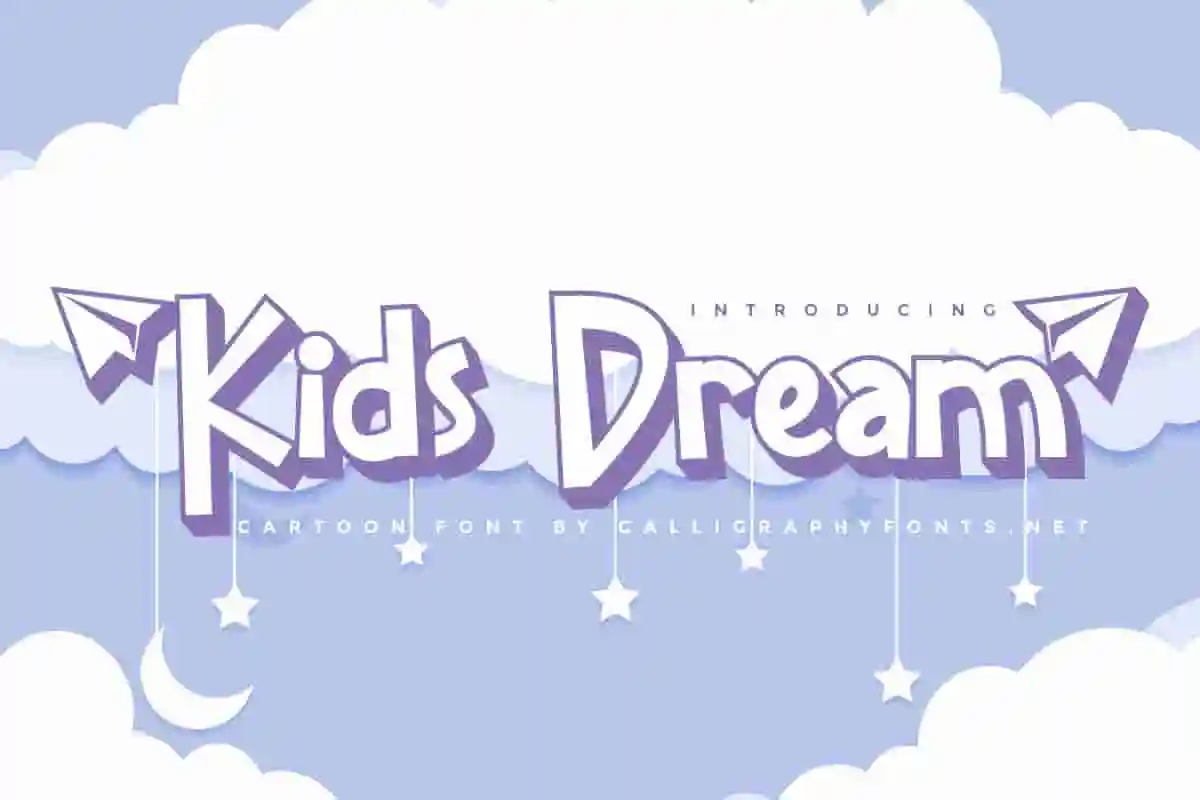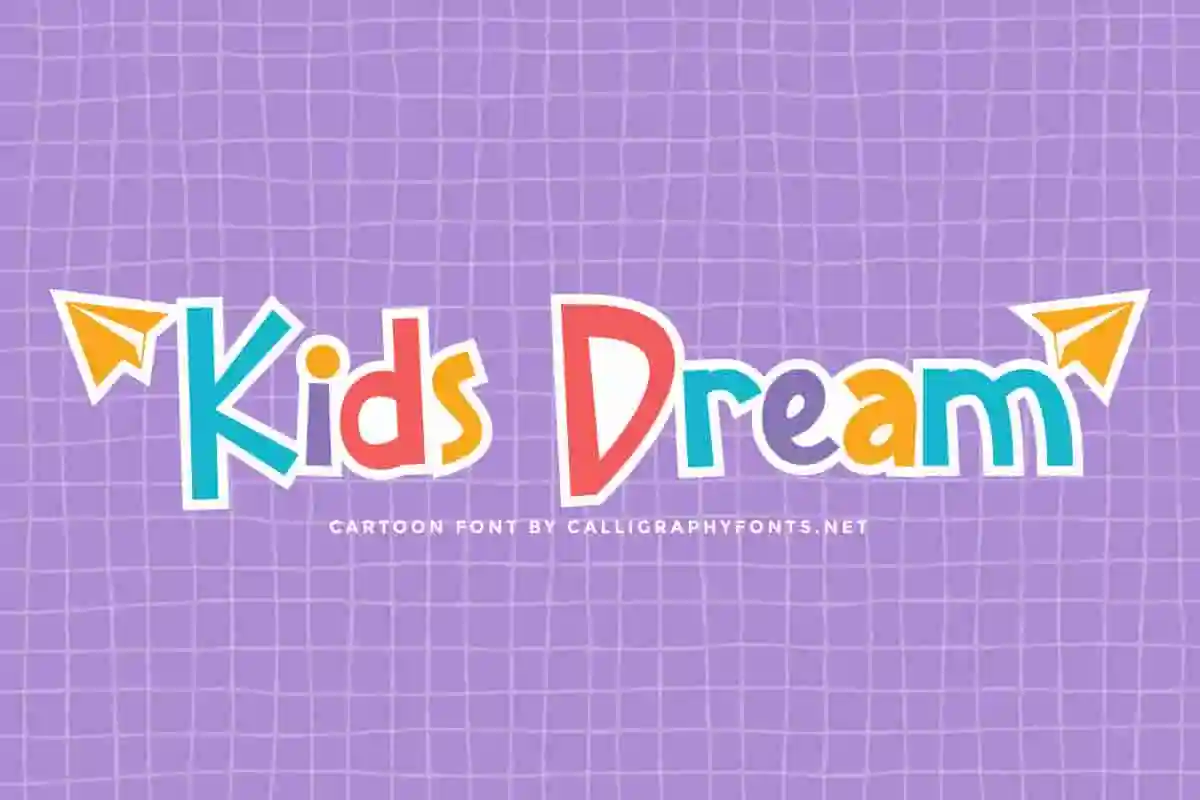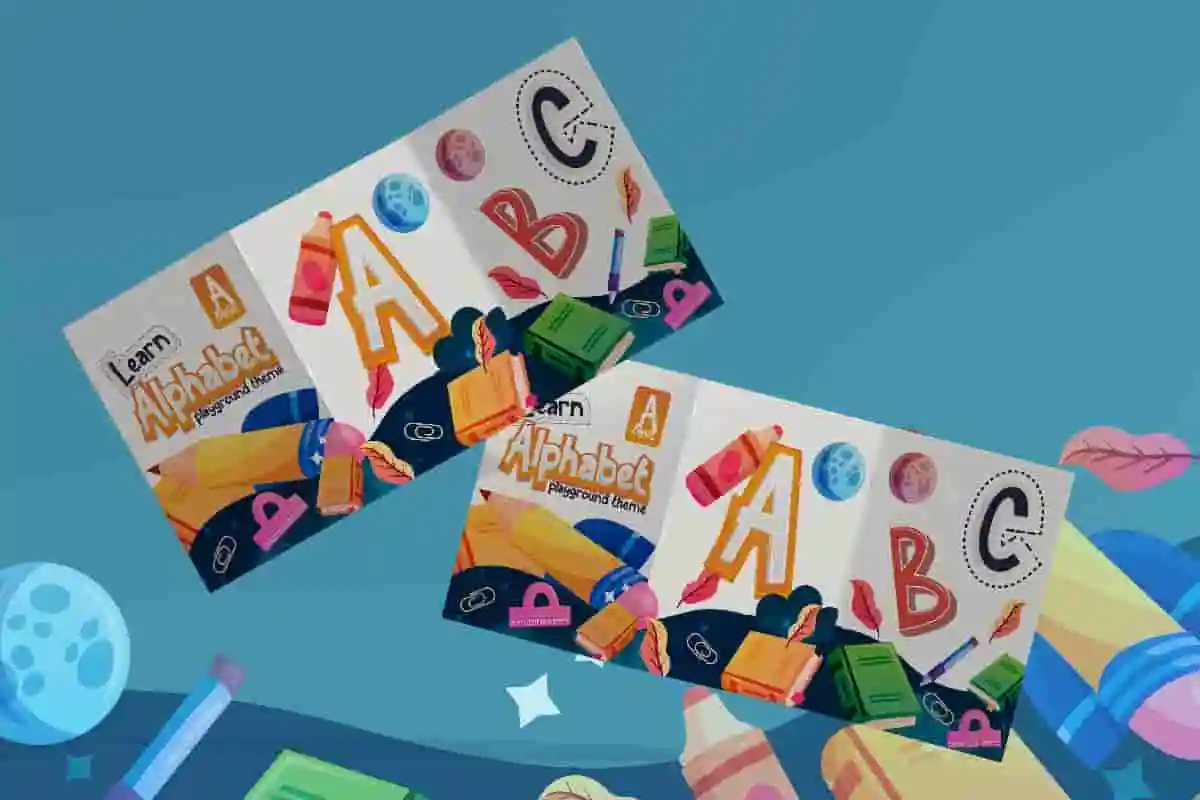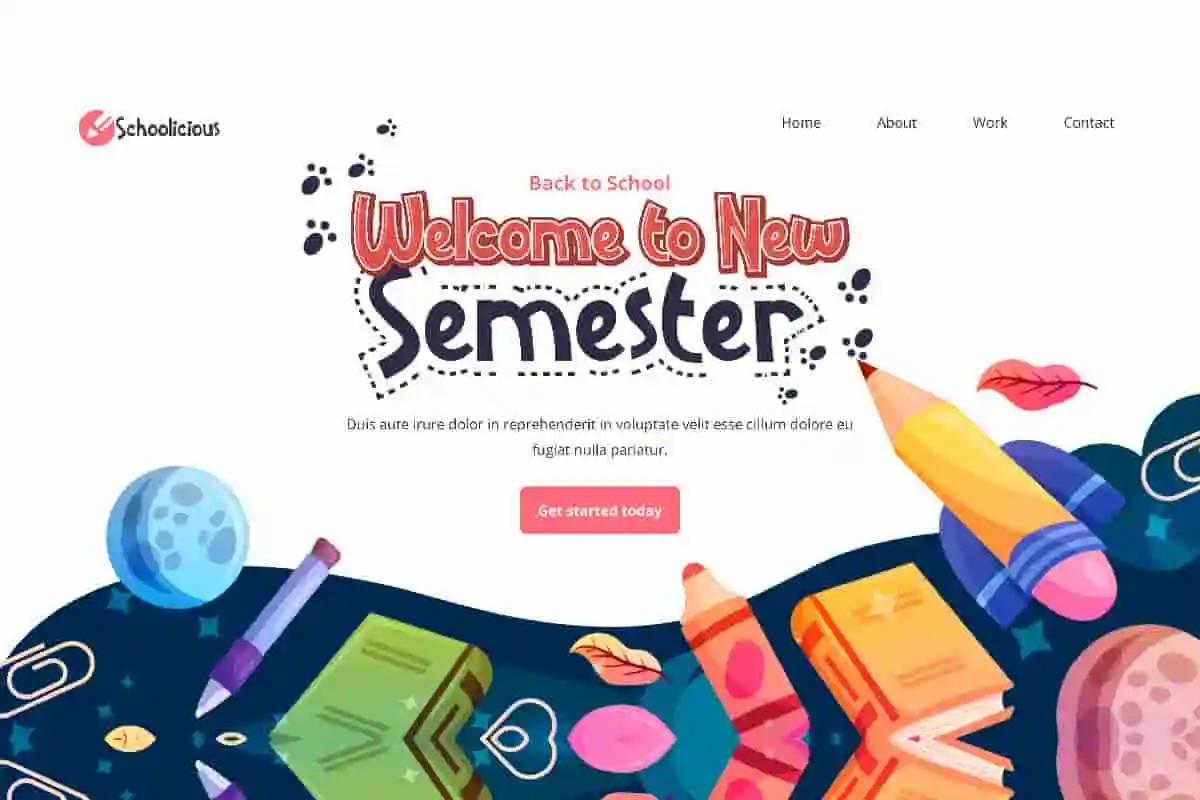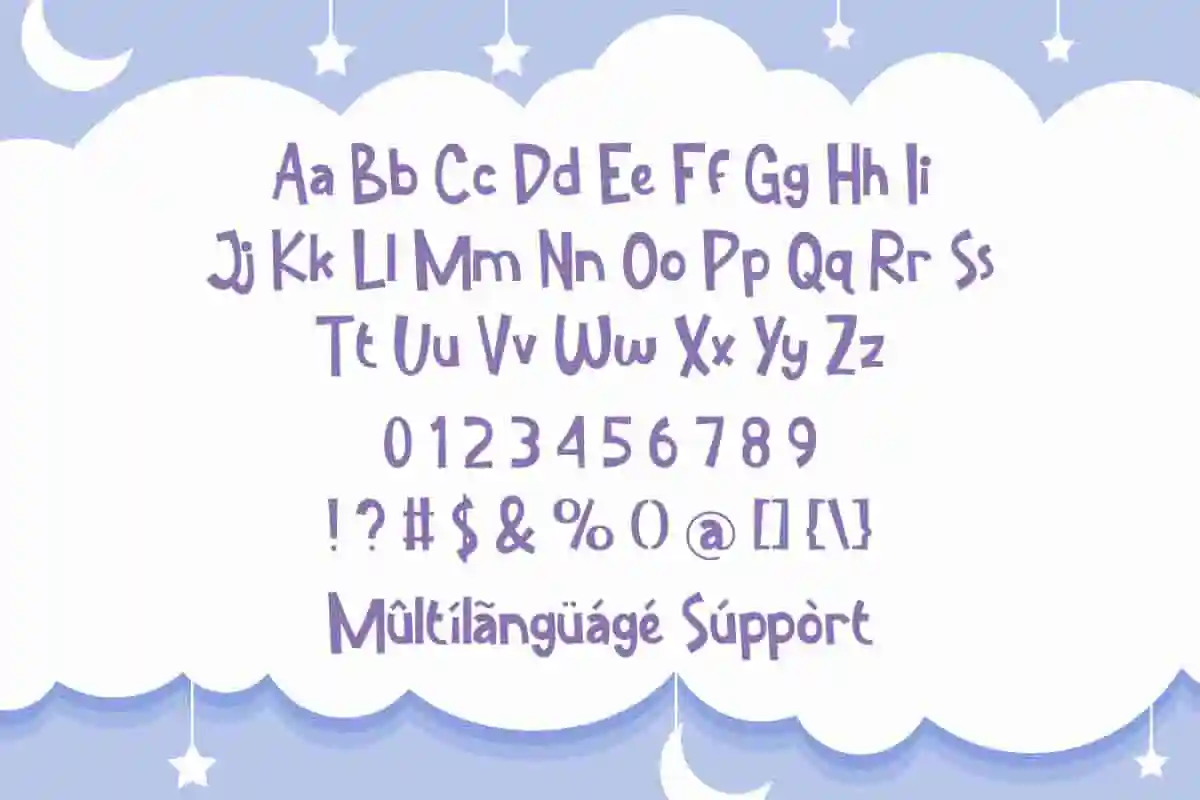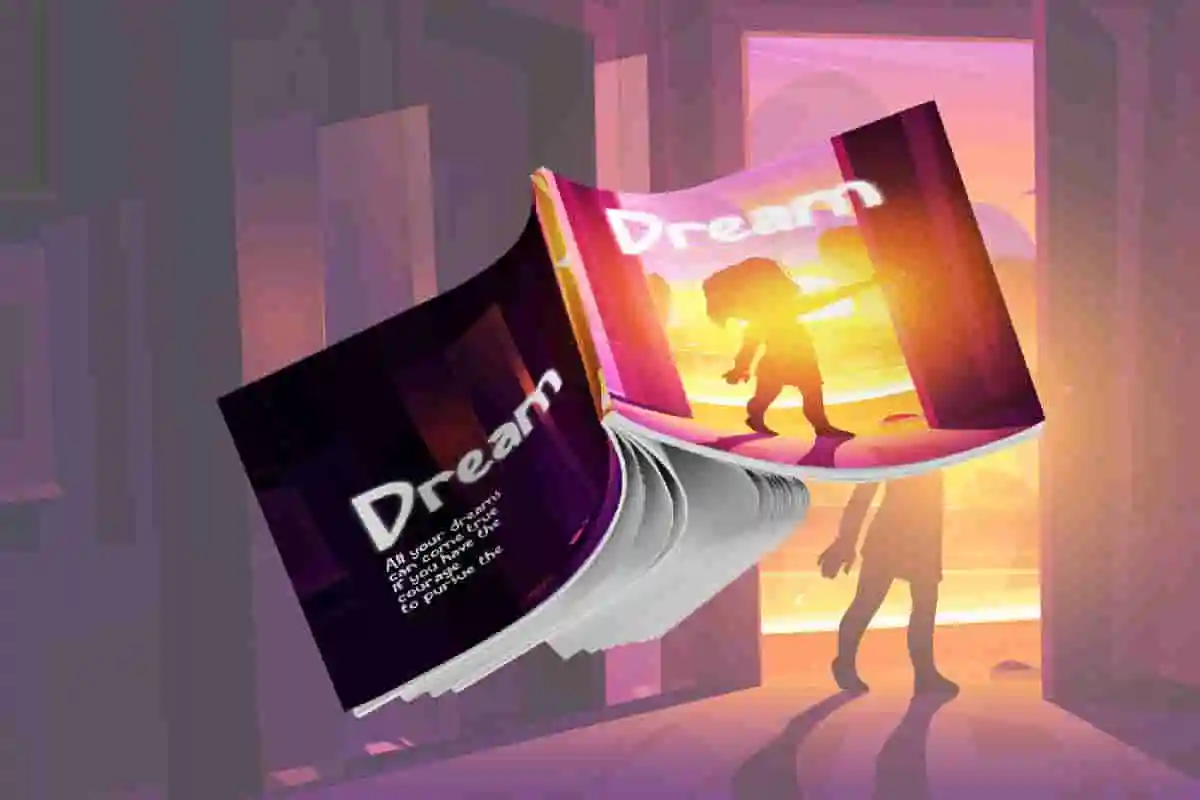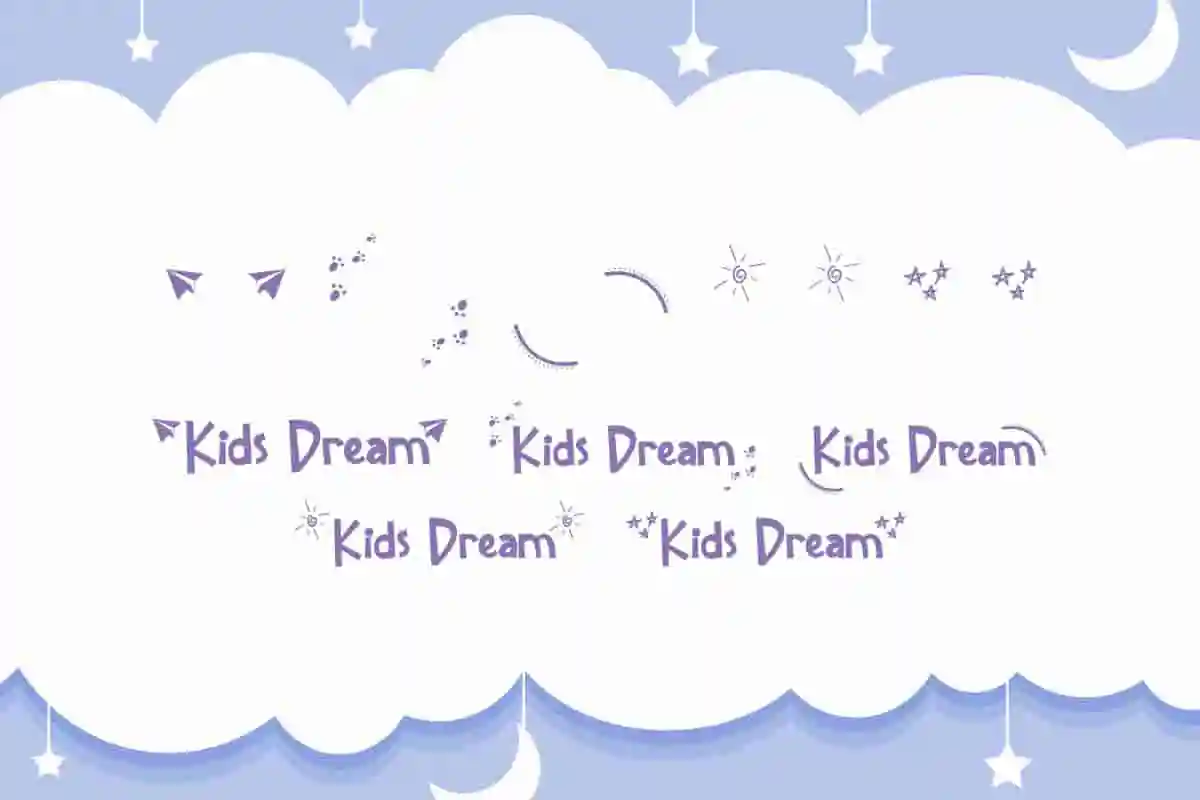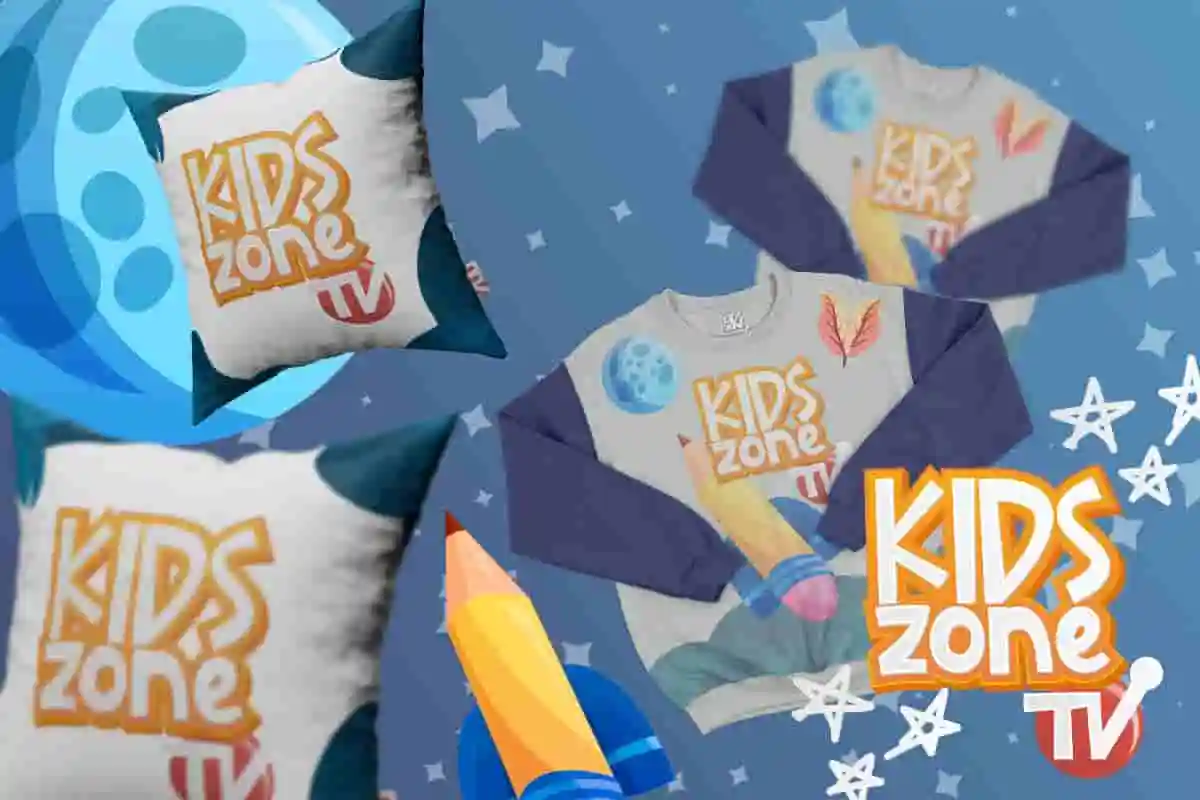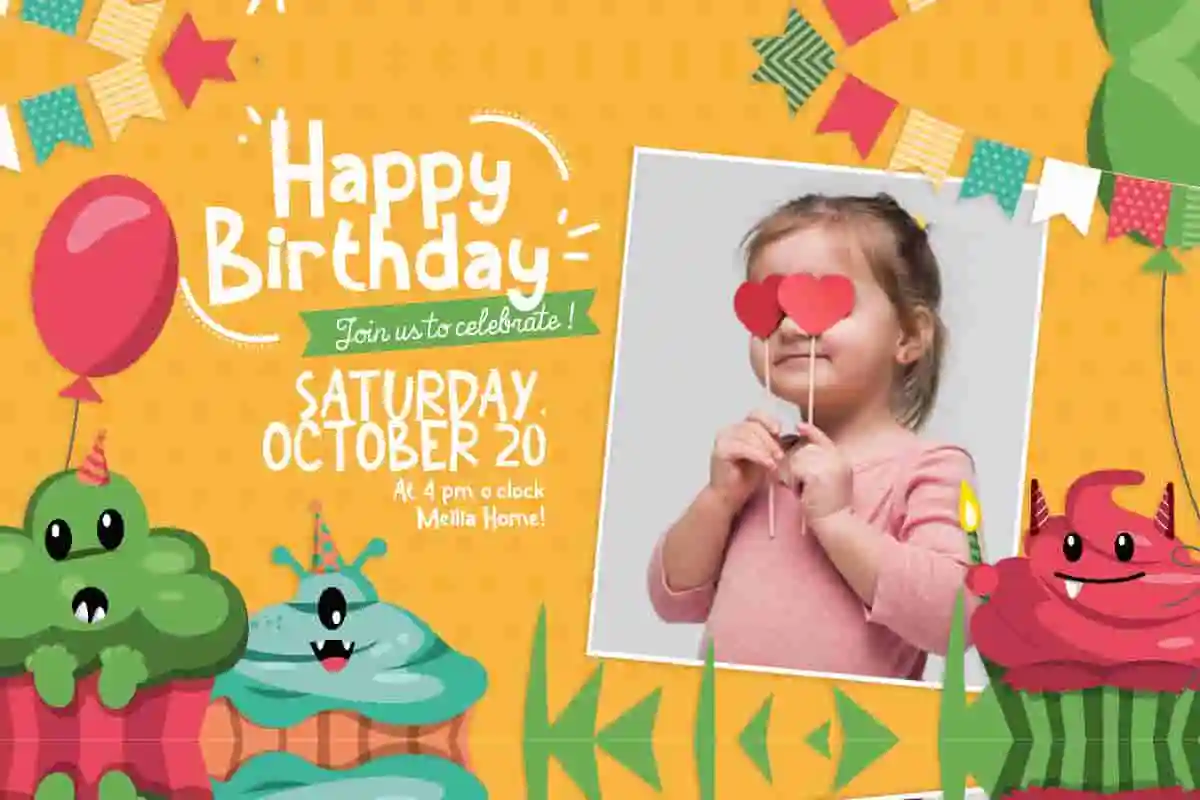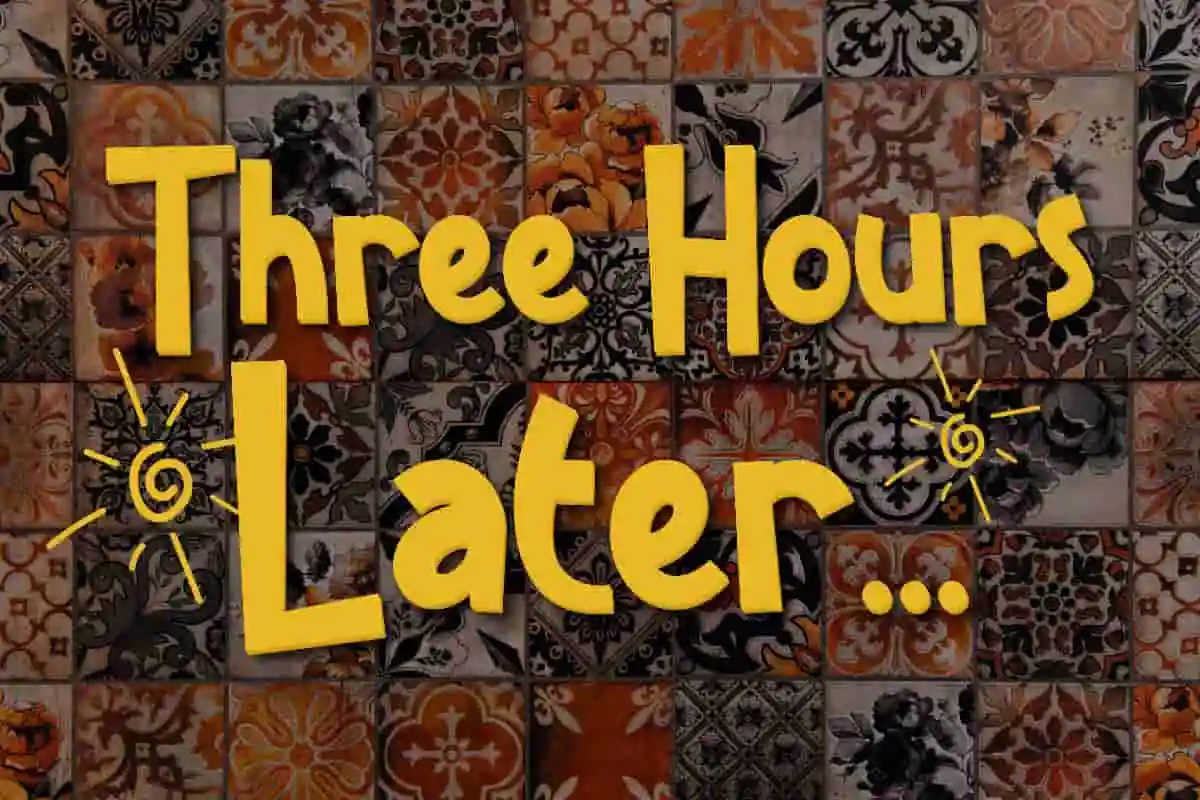
Kids Dream Display Font
Kids Dream Font is a cute and playful font. It’s perfect for decorating the theme party, stationery, and title by CalligraphyFonts. This font family is ideal for child related categories.
Kids Dream Font is a cartoon typeface that is funny. It is designed to complement a kids related brand or product. This typeface can be used for various themes in your project especially for children. It’s very good for birthday invitation, cartoon logo, celebration, children book, educational blog, greeting card, and print material.
Say hello to Kids Dream Display Font – a cheerful and playful typeface created to spark imagination! Designed especially for children’s projects, this font is perfect for storybooks, classroom materials, birthday invitations, product packaging, logos, and more. Kids Dream Display Font is a fun and friendly typeface designed to bring a touch of joy to every creative project.
Step into a world of creativity with Kids Dream Display Font — a joyful, bold, and imaginative typeface that captures the magic of childhood. Designed with playful curves and friendly letterforms, this font is made to brighten up every project, from kids’ books and games to toy packaging and birthday invitations.
From storybooks to birthday invitations, Kids Dream is a versatile display font that fits perfectly into any project aimed at young audiences. Its quirky yet clear letterforms make it ideal for educational posters, games, packaging, or any product that needs a happy and welcoming visual voice.
- Perfect for posters, games, packaging & books
- High readability for all ages